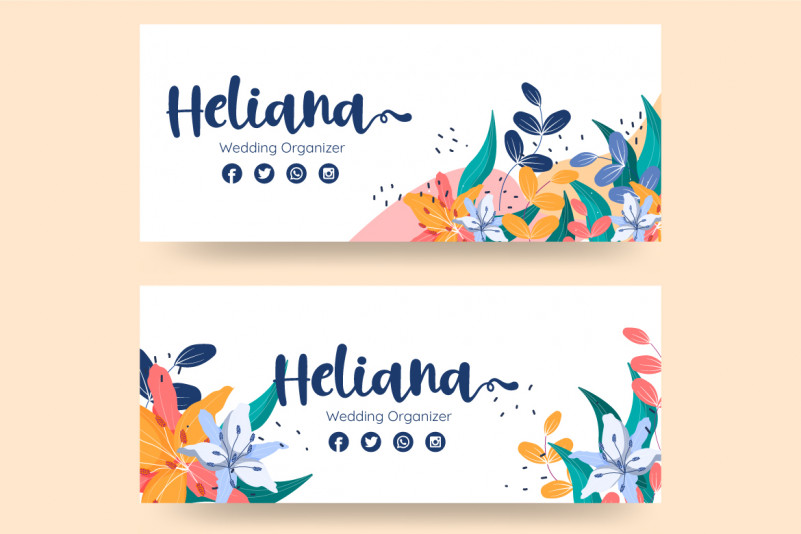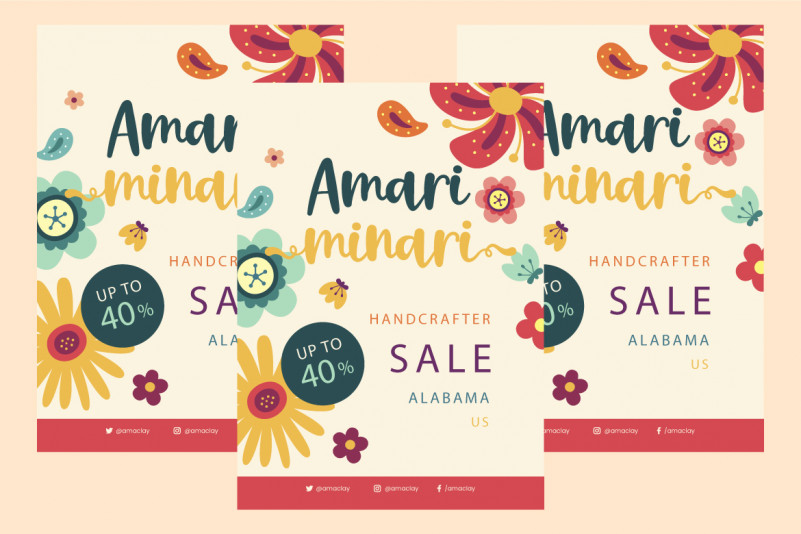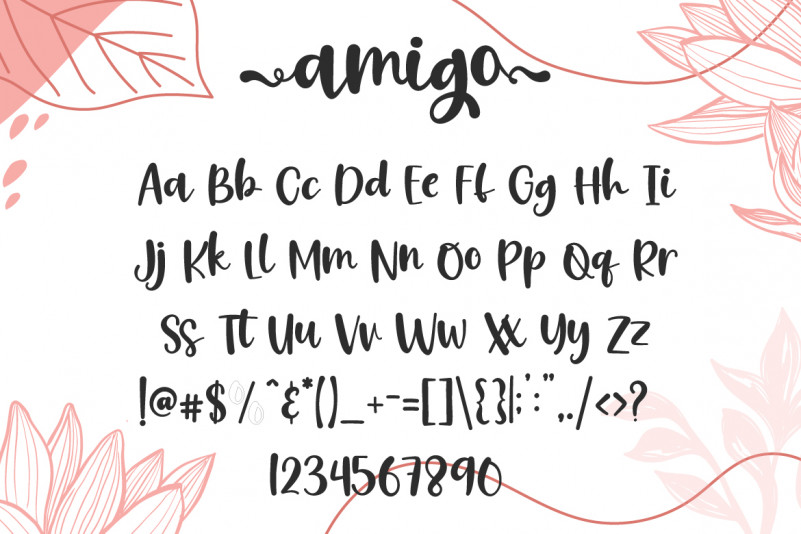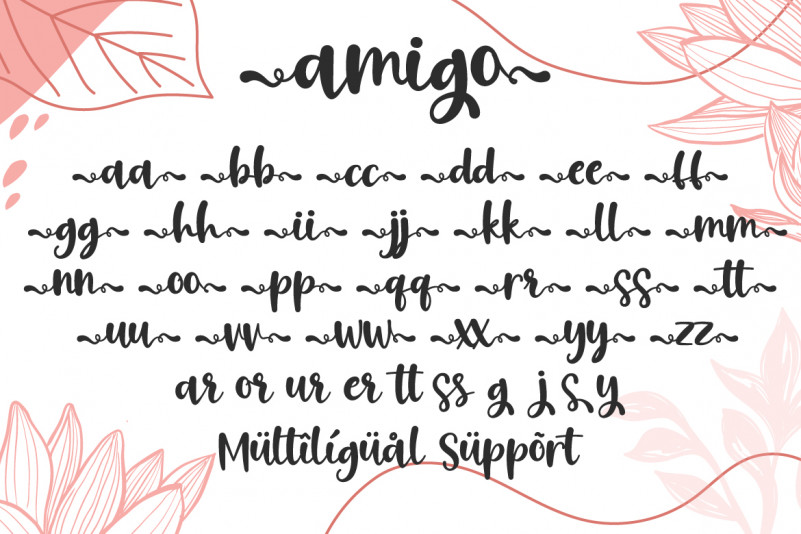
Amigo Font
Amigo Calligraphy Font
This is a flowing handwritten font, described by an elegant touch, perfect for your favorite projects. Fall in love with its incredibly distinct and timeless style and use it to create spectacular designs! This font is PUA encoded which means you can access all of the glyphs and swashes with ease!